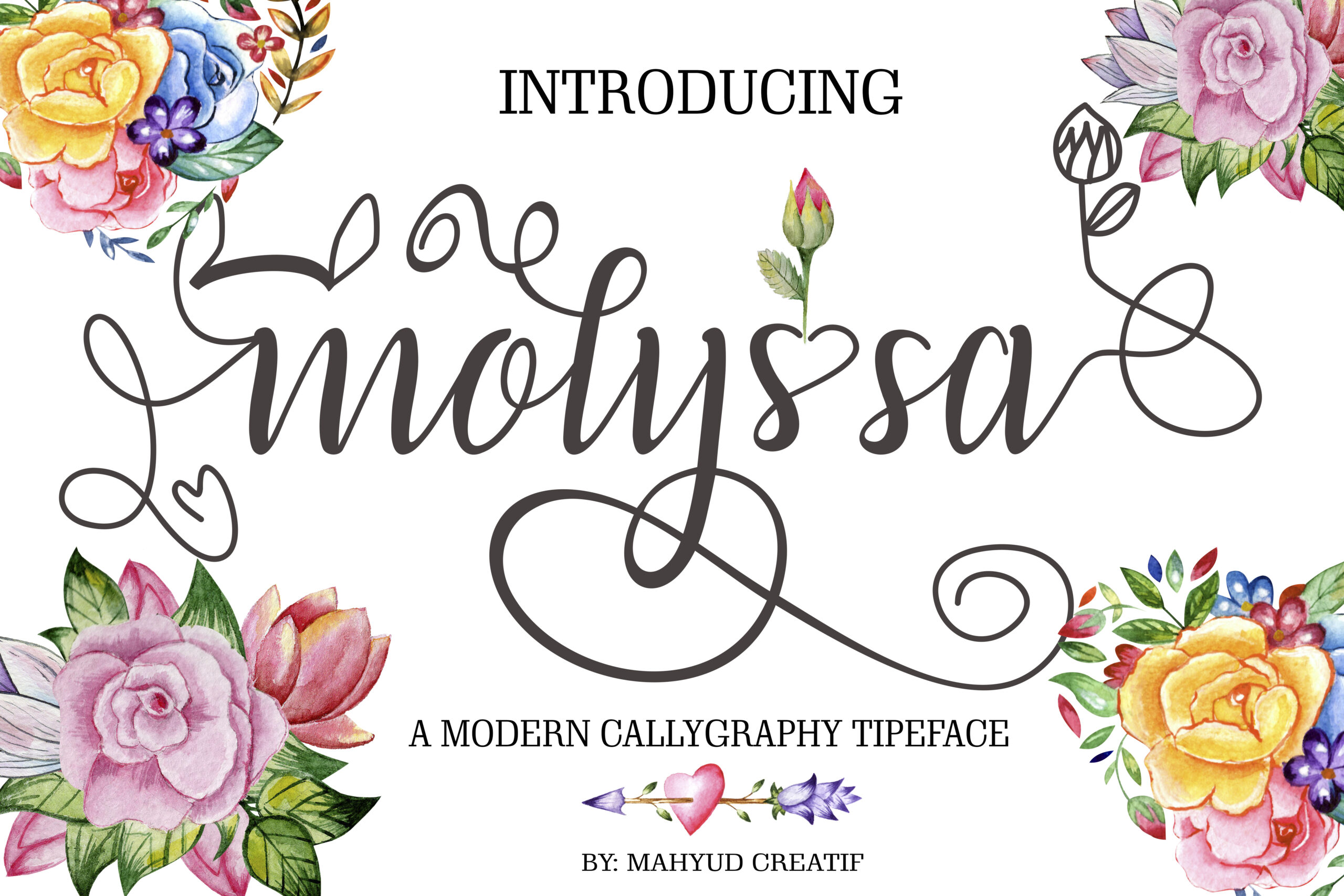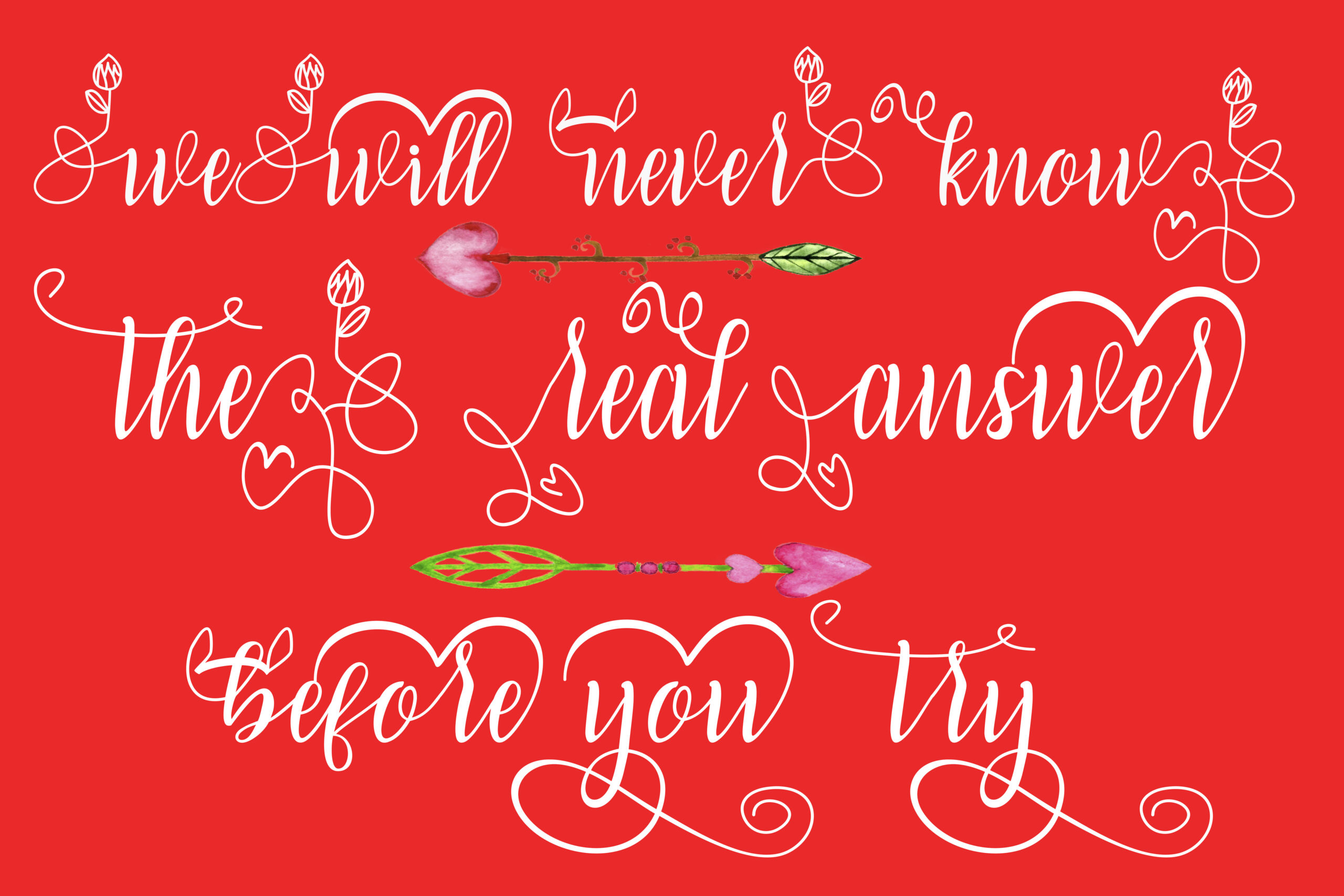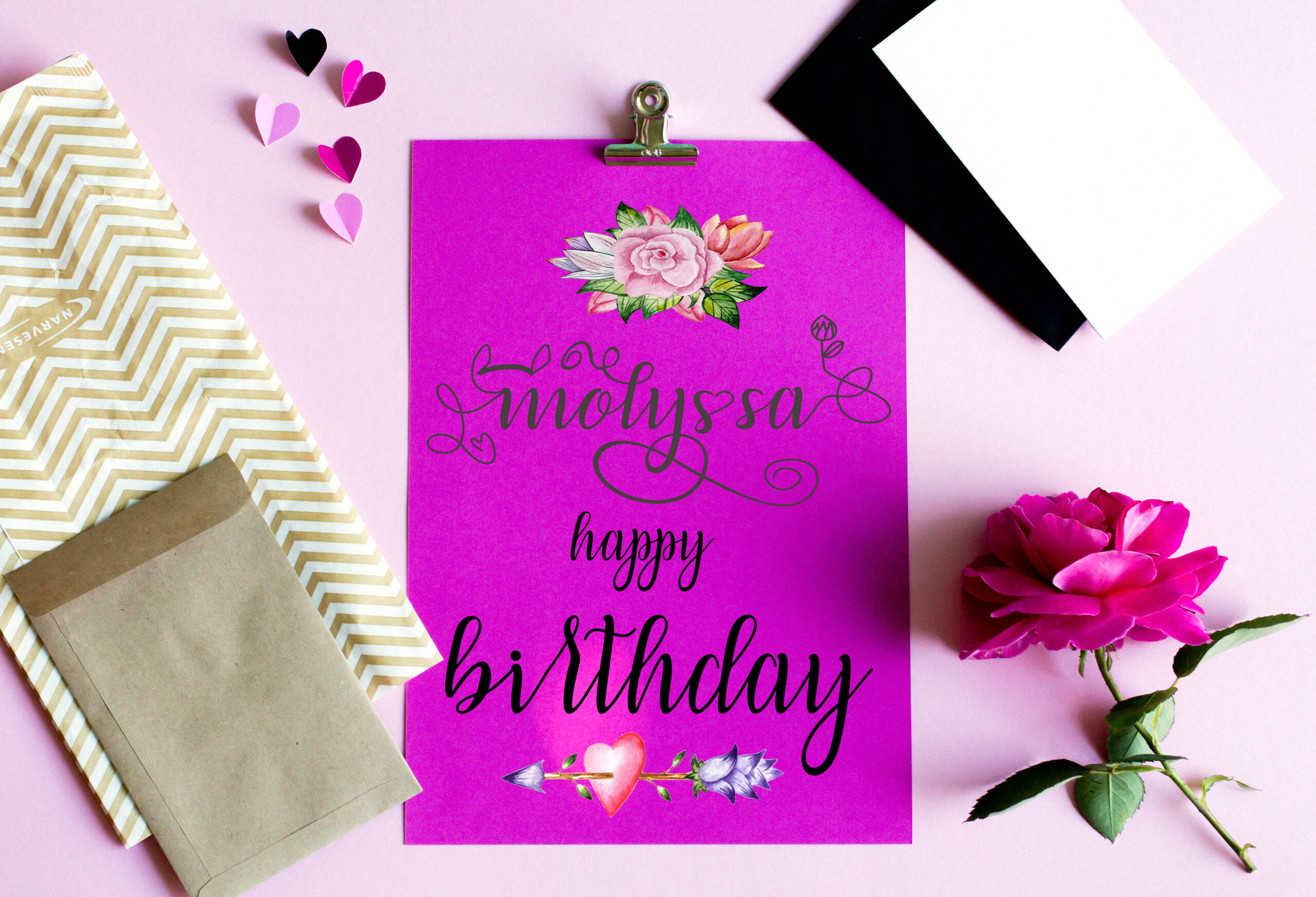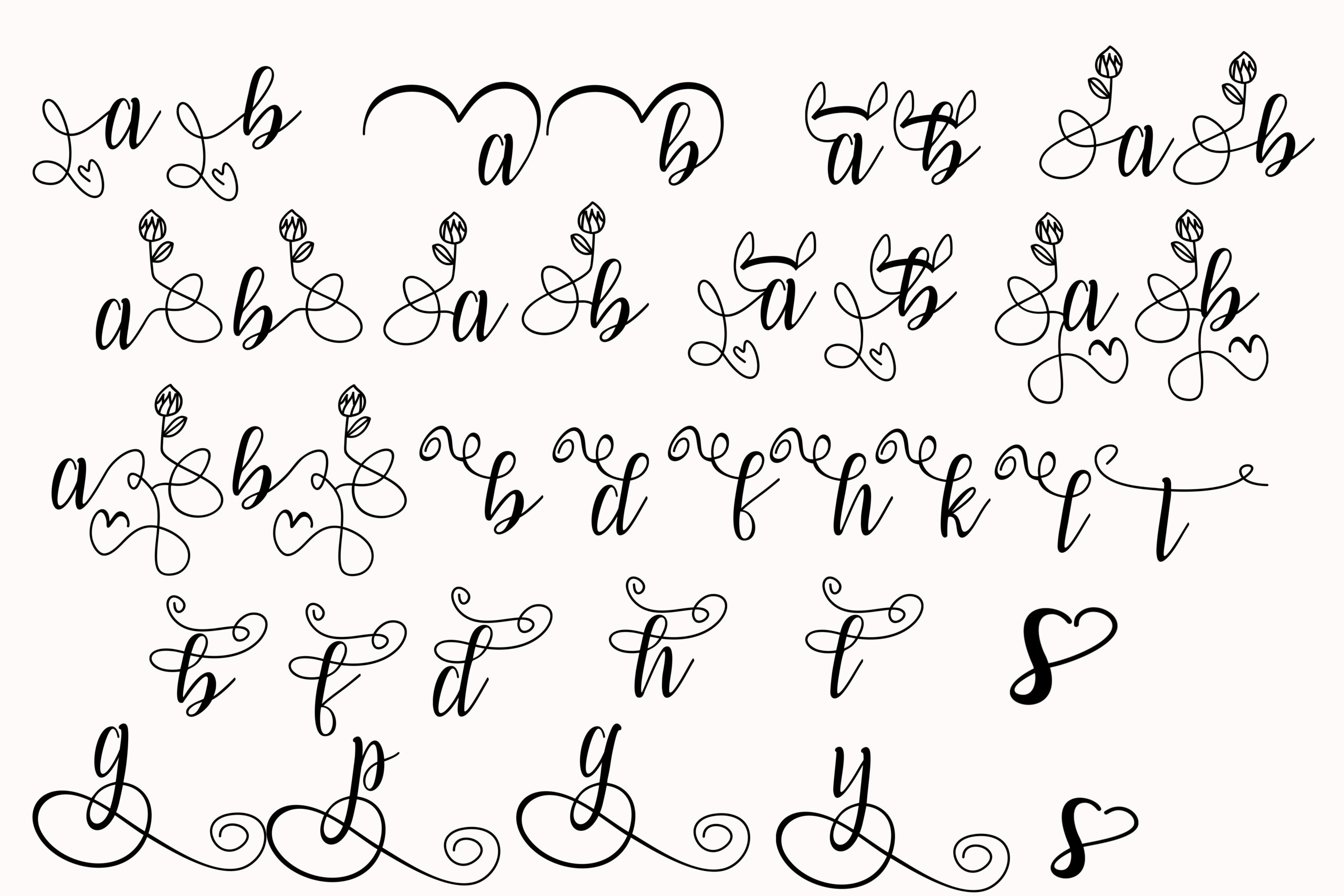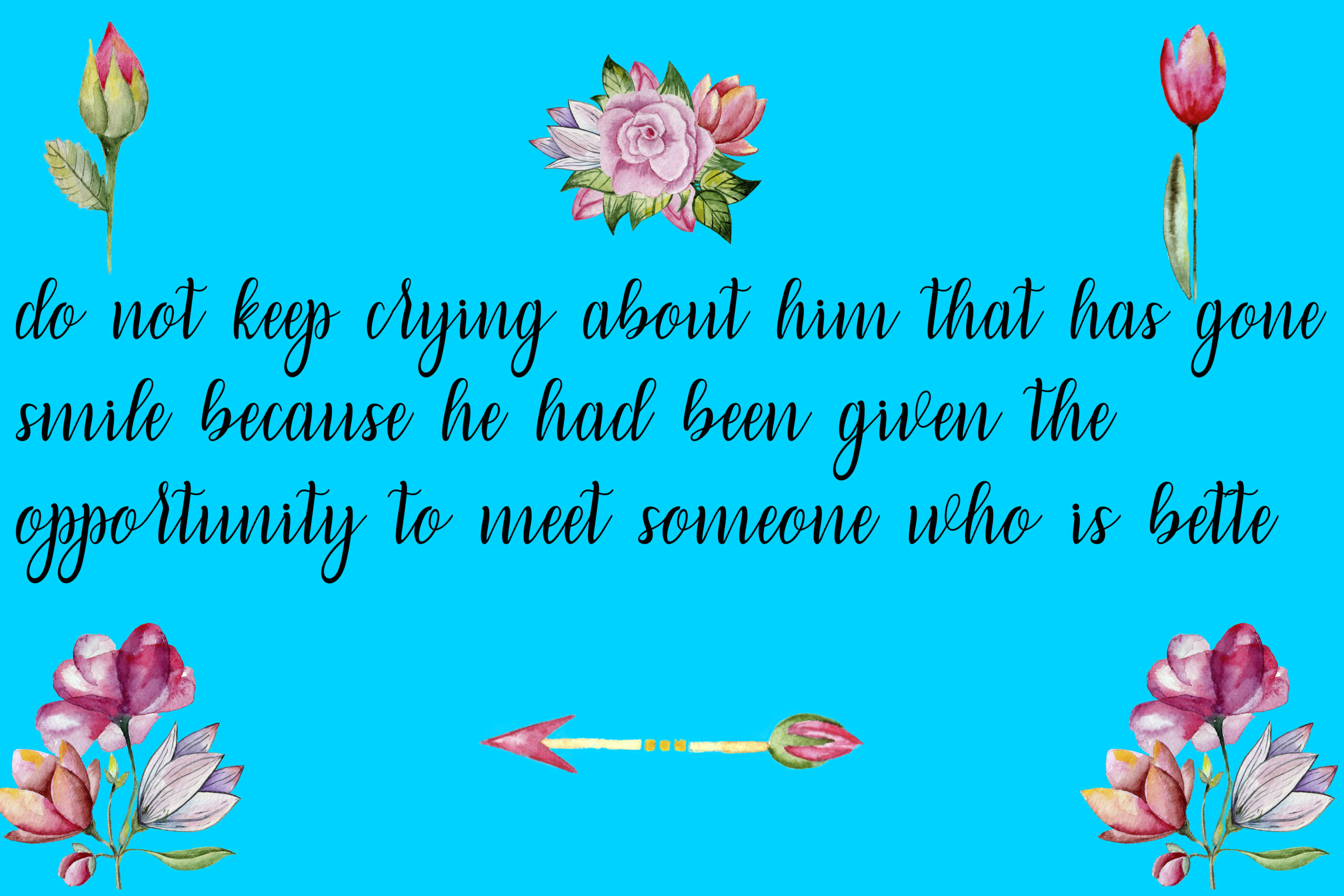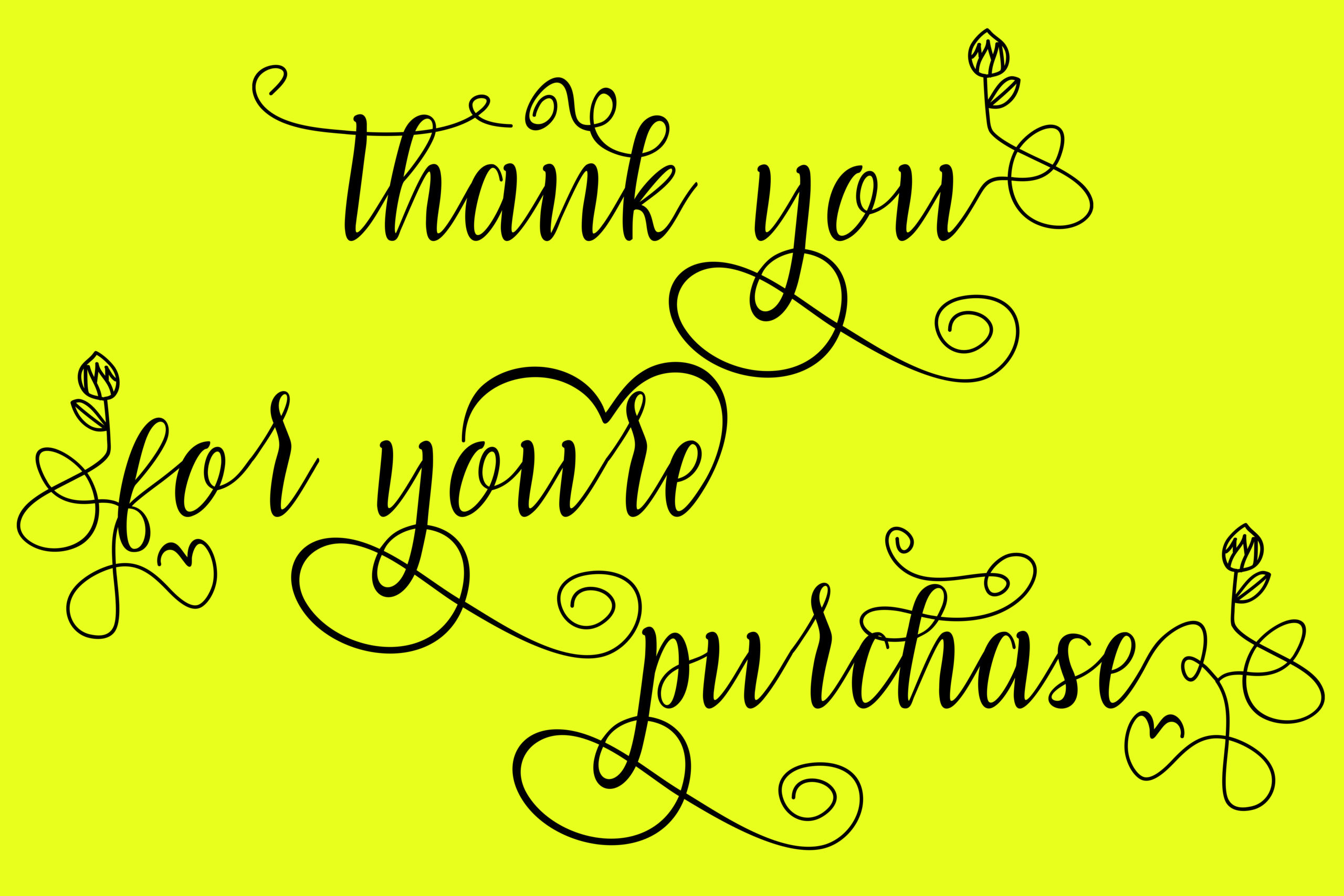
Molyssa Font
About Molyssa Font
Molyssa is a modern calligraphy script. The font is designed by hand and features a modern look and feel. It has a natural fool.